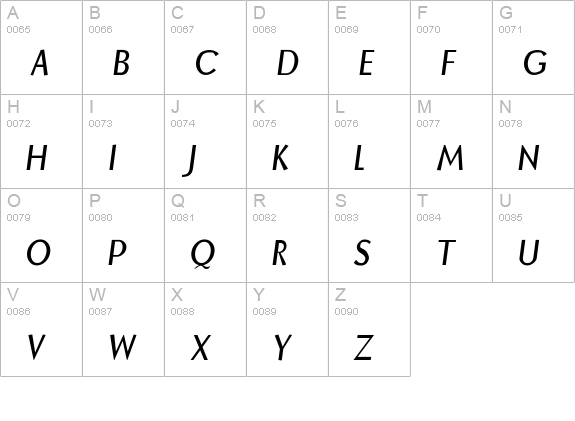
BorzoiReaderIta Font Details
BorzoiReaderIta font is an elegant and stylish typeface that exudes sophistication and charm. This font features graceful italic letterforms that flow smoothly across the page, making it perfect for adding a touch of class to any design project. Whether you're creating invitations, posters, or branding materials, BorzoiReaderIta font will elevate your work to the next level. The best part? BorzoiReaderIta font is completely free to download at FontsMarket.com. This means you can enjoy the beauty and versatility of this font without breaking the bank. Don't miss out on this amazing opportunity to enhance your designs with a high-quality typeface that is both visually stunning and easy to read. Download BorzoiReaderIta font today and let your creativity shine!